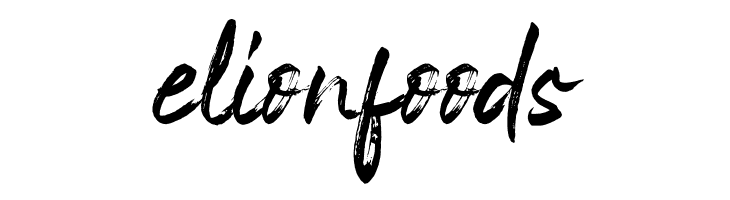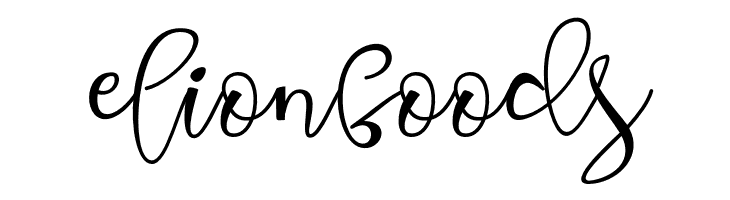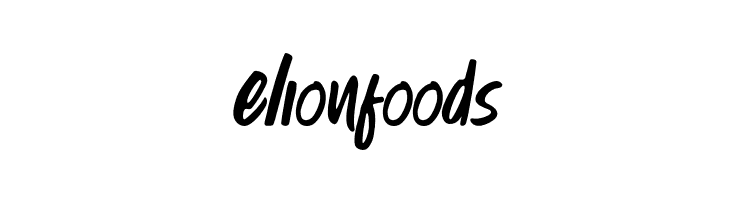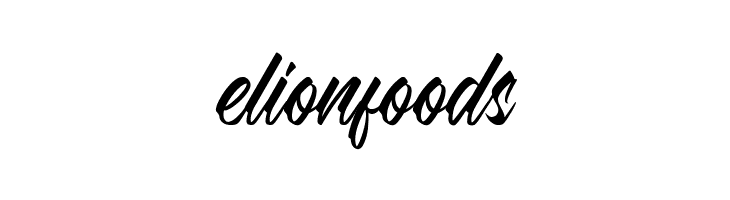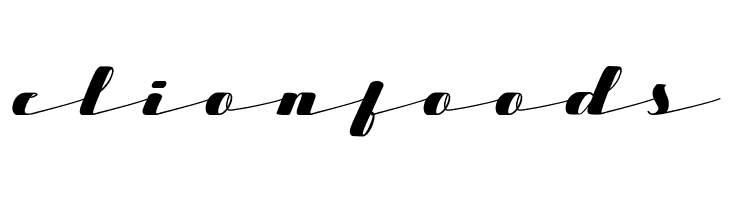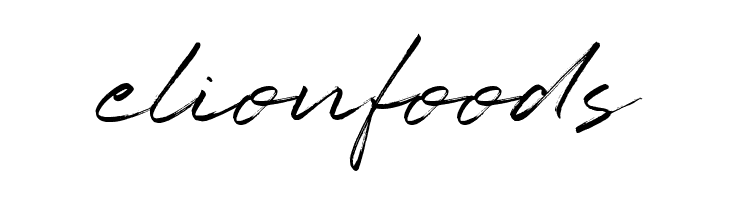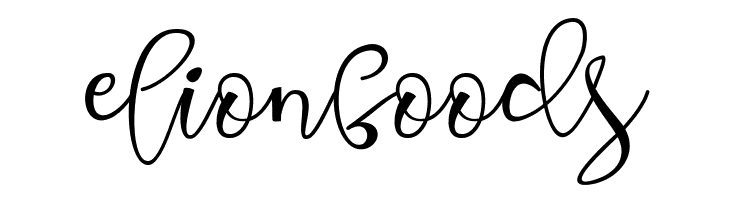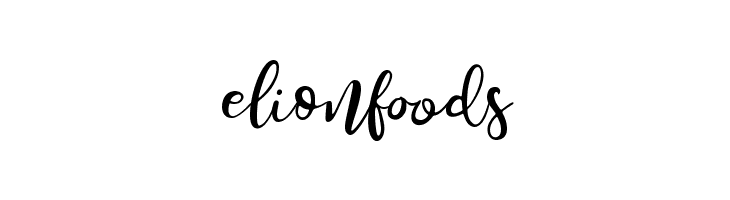
A dynamic and elegant script font with flowing, cursive letterforms.
A graceful script font with elegant, flowing strokes and a handwritten style.
A bold, brush script font with dynamic, textured strokes.
A dynamic, expressive handwritten font with fluid, cursive strokes.
A playful and elegant handwritten font with flowing cursive letters.
A lively, handwritten script font with elegant connections and playful loops.
A stylish and elegant script font with flowing, cursive letterforms.
A sophisticated script font with flowing, cursive letterforms and elegant flourishes.
A bold, energetic script font with a hand-drawn, playful style.